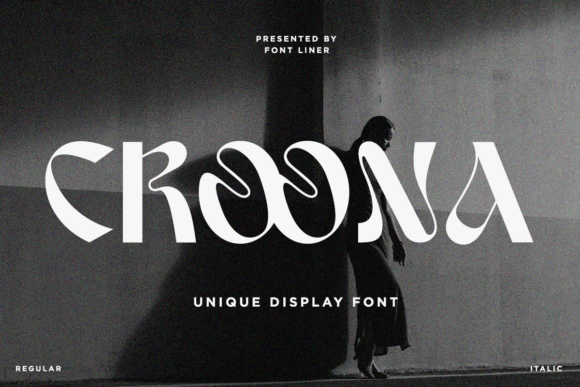
Croona Font: The Cute and Quirky Serif Font to Elevate Your Designs
In the world of typography, fonts play a vital role in conveying the tone and personality of a design. Among the numerous fonts available, Croona font stands out for its unique blend of cuteness and quirkiness. This serif font is designed to add a joyful touch to your designs, making them stand out from the crowd. In this article, we’ll explore the features and benefits of Croona font, and how it can elevate your creative projects.
What is Croona Font?
Croona font is a display font that belongs to the serif family. Its distinctive design combines traditional serif elements with a playful twist, making it perfect for creative projects that require a touch of whimsy. The font’s unique characteristics include its irregular shapes, varying line widths, and charming details that give it a hand-drawn feel.
Features and Benefits of Croona Font
- Unique and eye-catching design: Croona font’s quirky design makes it perfect for grabbing attention and adding visual interest to your designs.
- Versatile and adaptable: This font can be used for a wide range of creative projects, from branding and advertising to packaging and digital media.
- Easy to read and understand: Despite its playful design, Croona font remains highly legible, making it suitable for body text and headings.
- Customizable: The font comes with multiple variations, allowing you to experiment with different styles and weights to suit your design needs.
Creative Ways to Use Croona Font
Croona font’s versatility makes it suitable for a wide range of creative projects. Here are some ideas to get you started:
- Branding and logos: Use Croona font to create a unique and memorable brand identity that stands out from the competition.
- Posters and flyers: Add a playful touch to your promotional materials with Croona font’s quirky design.
- Social media graphics: Use Croona font to create engaging and shareable social media graphics that showcase your brand’s personality.
- Packaging design: Add a touch of whimsy to your product packaging with Croona font’s unique design.
Tips for Using Croona Font Effectively
To get the most out of Croona font, follow these tips:
- Use it sparingly: Croona font’s bold design can be overwhelming if overused. Use it for headings and titles, and pair it with a simpler font for body text.
- Experiment with colors: Croona font looks great in bold, bright colors. Experiment with different hues to find the perfect match for your brand.
- Pair it with complementary fonts: Combine Croona font with complementary fonts to create a unique and visually appealing typography combination.
In conclusion, Croona font is a unique and versatile serif font that can add a joyful touch to your designs. Its quirky design, versatility, and ease of use make it perfect for creative projects that require a touch of whimsy. By following the tips outlined in this article, you can effectively use Croona font to elevate your designs and make them stand out from the crowd.